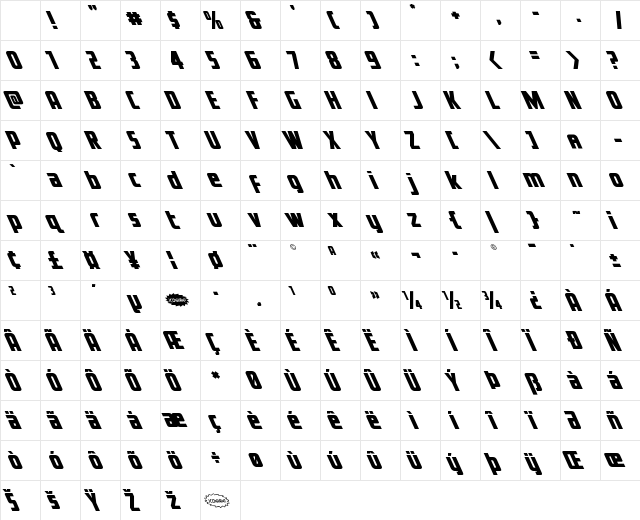
Complete Voyage Fantastique Leftalic Italic glyph index. Displaying only characters natively supported by Voyage Fantastique Leftalic Italic font.
Voyage Fantastique Leftalic is a composed and adaptable typeface that performs quietly and consistently across a wide range of design contexts. The slanted form adds forward momentum and visual energy.
Pro Tip: Use Voyage Fantastique Leftalic for emphasis, pull quotes, and subheadings where its slanted energy can add rhythm to the layout.